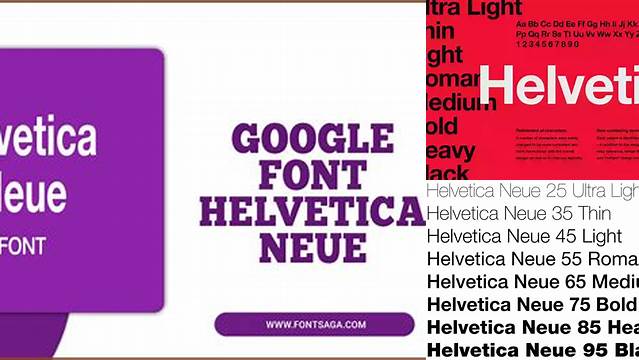
Best Google Fonts That Look Like Helvetica
Hey guys! Ever wondered what Google Fonts are out there that give off that classic Helvetica vibe? You're in the right place! Helvetica is a timeless typeface, known for its clean lines and readability. But sometimes, you need a free alternative, or just something a little different. Let’s dive into some awesome Google Fonts that capture a similar aesthetic. We'll explore fonts perfect for websites, branding, and more. Trust me, finding the right font can make all the difference in your design!
Alternatives to Helvetica on Google Fonts
When you're looking for alternatives to Helvetica on Google Fonts, you want something that maintains that same level of clarity and versatility. Think about what makes Helvetica so great: its simplicity, legibility, and neutral appearance. That's what we're aiming to replicate here. We'll look at several fonts that capture these qualities, offering you a range of options for your projects. Whether you're designing a website, creating a logo, or working on print materials, you'll find a font that fits the bill. Remember, the right font can elevate your design and make your message more impactful. Choosing the right font can really make or break a design, so it's important to understand what makes Helvetica so appealing in the first place and then finding fonts on Google that have similar characteristics. The key is to find fonts that are clean, legible, and versatile. This allows them to be used in a wide range of design applications, from websites to print materials.
Free Fonts Similar to Helvetica Available on Google
Finding free fonts similar to Helvetica available on Google is easier than you might think! Google Fonts is a treasure trove of high-quality, open-source typefaces. We’ll explore fonts that closely resemble Helvetica in terms of structure, spacing, and overall feel. These fonts are not only free but also easy to implement on your website or in your design projects. Using these fonts, you can achieve a similar aesthetic without breaking the bank. Think about the impression you want to make with your designs and choose fonts that reflect those values. Free doesn't mean low quality – these fonts are professionally designed and ready to use. Many designers rely on Google Fonts for their projects, and you can too. The fact that they're free makes them even more appealing, especially for designers who are just starting out or who are working on a budget. However, it's important to choose your fonts carefully, as not all free fonts are created equal. Look for fonts that have been professionally designed and that have a wide range of weights and styles available. This will give you the flexibility you need to create effective designs.
Closest Font to Helvetica in Google Fonts
What’s the closest font to Helvetica in Google Fonts? That’s the million-dollar question! While no font is an exact replica, some fonts come remarkably close. We’ll pinpoint fonts that share key characteristics with Helvetica, such as a similar x-height, stroke contrast, and overall geometry. These fonts can serve as excellent substitutes when you want that Helvetica look without the Helvetica price tag. Consider factors like readability and versatility when making your choice. Sometimes, a slight variation can add a unique touch to your design while still maintaining the essence of Helvetica. Finding that perfect balance is key. When searching for the closest font to Helvetica, pay attention to the details. Look at the shape of the letters, the spacing between the letters, and the overall weight of the font. These are all important factors that will contribute to the overall look and feel of your design. Also, don't be afraid to experiment with different fonts and styles until you find the perfect match.
Google Font Alternatives Resembling Helvetica
Let’s explore several Google Font alternatives resembling Helvetica. Each option offers a unique take on the classic typeface. We'll discuss their strengths, weaknesses, and ideal use cases. From slightly rounded versions to more geometric interpretations, you'll find a variety of fonts that capture the spirit of Helvetica. These alternatives provide flexibility for different design styles and preferences. Consider the overall tone and message of your project when selecting the best fit. Some fonts might be better suited for headlines, while others excel in body text. The beauty of Google Fonts is the sheer variety available, so take your time to explore and experiment. Choosing the right font can make all the difference in the success of your design. Think about the target audience and the overall message you want to convey. With so many options to choose from, you're sure to find the perfect font for your project.
Helvetica-Style Fonts on Google Fonts
Discovering Helvetica-style fonts on Google Fonts is like finding hidden gems! These fonts offer a similar aesthetic to Helvetica, characterized by clean, modern, and highly readable designs. They are perfect for projects where you need a neutral and versatile typeface. Whether you're working on a website, a brochure, or a presentation, these fonts will ensure your text looks polished and professional. Explore fonts with similar letterforms, spacing, and overall appearance to achieve that classic Helvetica look without any licensing fees. Remember, the right font can enhance your brand identity and make your message more impactful. Don't underestimate the power of typography in design. It's one of the most important elements that can make or break a design. So, take your time to find the perfect font for your project and make sure it aligns with your brand values and aesthetic.
Open Source Fonts Similar to Helvetica
Using open source fonts similar to Helvetica is a great way to save money and still achieve a professional look. Open source fonts are free to use for personal and commercial projects, making them a budget-friendly option. We'll highlight fonts that capture the essence of Helvetica while being completely free to use. These fonts are perfect for startups, small businesses, or anyone looking to create high-quality designs without spending a fortune. Open source fonts are often created by talented designers who are passionate about typography and want to share their work with the world. By using open source fonts, you're supporting the design community and contributing to the open-source movement. Plus, you'll have access to a wide range of fonts that you can use in your projects. So, if you're looking for a cost-effective way to create professional-looking designs, consider using open source fonts similar to Helvetica.
Best Fonts Similar to Helvetica for Web Design
For web design, the best fonts similar to Helvetica need to be highly readable and perform well across different browsers and devices. We’ll focus on fonts that are optimized for screen display, ensuring your website looks great on desktops, tablets, and smartphones. These fonts should have clear letterforms and proper spacing to ensure a pleasant reading experience for your visitors. Consider factors like font weight and style when choosing the best font for your website. Some fonts might be better suited for headings, while others excel in body text. The goal is to create a cohesive and visually appealing design that enhances the user experience. A well-chosen font can improve readability, convey your brand message, and make your website more engaging. So, take the time to find the perfect font for your web design project and make sure it's optimized for the web.
Top Google Fonts That Mimic Helvetica
Let’s review the top Google Fonts that mimic Helvetica. We’ll delve into specific font names and discuss why they make excellent alternatives. Think of this as your cheat sheet for finding the perfect Helvetica-inspired font on Google Fonts. We’ll cover fonts that are suitable for various design purposes, from branding to web design to print materials. Each font has its own unique characteristics, so you'll have plenty of options to choose from. Consider the overall style and tone of your project when selecting the best font. The goal is to find a font that complements your design and enhances your message. Don't be afraid to experiment with different fonts and styles until you find the perfect fit. With so many options available on Google Fonts, you're sure to find a font that meets your needs and exceeds your expectations. When it comes to finding fonts that mimic Helvetica, it's important to look for fonts that share similar characteristics, such as clean lines, geometric shapes, and a neutral appearance. These are the qualities that make Helvetica so popular and versatile, so finding fonts that embody these qualities will help you achieve a similar aesthetic in your designs.
Google Fonts with Similar Characteristics to Helvetica
Finding Google Fonts with similar characteristics to Helvetica involves understanding what makes Helvetica so unique. It’s all about the clean lines, neutral design, and excellent readability. We'll explore fonts that share these key attributes, providing you with a range of options for your design projects. These fonts are versatile and can be used in various applications, from websites to print materials. Consider the overall tone and style of your project when selecting the best font. The goal is to find a font that complements your design and enhances your message. Don't be afraid to experiment with different fonts and styles until you find the perfect fit. With so many options available on Google Fonts, you're sure to find a font that meets your needs and exceeds your expectations. When it comes to finding fonts with similar characteristics to Helvetica, it's important to look for fonts that share similar features, such as a large x-height, uniform stroke width, and open apertures. These are all important factors that contribute to the overall readability and legibility of the font. Also, consider the font's weight and style options, as this will give you more flexibility in your designs.
Best Sans-Serif Google Fonts Like Helvetica
When searching for sans-serif Google Fonts like Helvetica, you're looking for fonts that are clean, modern, and highly readable. Sans-serif fonts are characterized by the absence of serifs, the small decorative strokes at the end of letterforms. We'll highlight fonts that capture the essence of Helvetica while being completely free to use. These fonts are perfect for websites, branding, and print materials. Sans-serif fonts are often used in headlines and body text, as they are easy to read on screen and in print. Consider the overall tone and style of your project when selecting the best font. The goal is to find a font that complements your design and enhances your message. Don't be afraid to experiment with different fonts and styles until you find the perfect fit. With so many options available on Google Fonts, you're sure to find a font that meets your needs and exceeds your expectations. When choosing sans-serif fonts, pay attention to the font's weight, style, and spacing. These are all important factors that will affect the overall readability and legibility of the font.
Google Fonts for a Modern Look Similar to Helvetica
To achieve a modern look similar to Helvetica using Google Fonts, you need fonts that exude simplicity and clarity. We'll explore fonts that are perfect for creating a contemporary and sophisticated design. These fonts are ideal for websites, branding, and marketing materials. Consider the overall tone and style of your project when selecting the best font. The goal is to find a font that complements your design and enhances your message. Don't be afraid to experiment with different fonts and styles until you find the perfect fit. With so many options available on Google Fonts, you're sure to find a font that meets your needs and exceeds your expectations. When choosing fonts for a modern look, pay attention to the font's weight, style, and spacing. Look for fonts that have clean lines, geometric shapes, and a neutral appearance. These are the qualities that make Helvetica so popular and versatile. Also, consider using fonts with a large x-height, as this will improve readability and legibility.
Free Google Fonts That Emulate Helvetica’s Style
Finding free Google Fonts that emulate Helvetica’s style is a great way to save money and still achieve a professional look. These fonts are free to use for personal and commercial projects, making them a budget-friendly option. We'll highlight fonts that capture the essence of Helvetica while being completely free to use. These fonts are perfect for startups, small businesses, or anyone looking to create high-quality designs without spending a fortune. Free doesn't mean low quality – these fonts are professionally designed and ready to use. Many designers rely on Google Fonts for their projects, and you can too. The fact that they're free makes them even more appealing, especially for designers who are just starting out or who are working on a budget. However, it's important to choose your fonts carefully, as not all free fonts are created equal. Look for fonts that have been professionally designed and that have a wide range of weights and styles available. This will give you the flexibility you need to create effective designs.
Google Fonts with High Readability Like Helvetica
Google Fonts with high readability like Helvetica are crucial for ensuring your message is easily understood. Helvetica is renowned for its clarity, making it a popular choice for body text and headlines alike. We’ll explore fonts that share this characteristic, ensuring your website or design project is accessible and engaging. These fonts should have clear letterforms, proper spacing, and a comfortable x-height. Consider the target audience when selecting the best font for readability. Some fonts might be better suited for certain age groups or reading levels. The goal is to create a design that is easy to read and understand for everyone. A well-chosen font can improve comprehension, increase engagement, and enhance the overall user experience. So, take the time to find the perfect font for your project and make sure it's optimized for readability. When choosing fonts for high readability, pay attention to the font's weight, style, and spacing. Also, consider the contrast between the text and the background. This is an important factor that will affect the overall readability of the text.
Similar Fonts to Helvetica for Professional Use
When you need similar fonts to Helvetica for professional use, you want typefaces that convey authority and reliability. Helvetica is a staple in the corporate world, known for its clean and neutral appearance. We'll highlight fonts that capture these qualities, making them ideal for business documents, presentations, and marketing materials. These fonts should be versatile and easy to read in various sizes and formats. Consider the overall brand identity when selecting the best font for professional use. The goal is to find a font that reflects your company's values and personality. Don't be afraid to experiment with different fonts and styles until you find the perfect fit. With so many options available on Google Fonts, you're sure to find a font that meets your needs and exceeds your expectations. When choosing fonts for professional use, pay attention to the font's weight, style, and spacing. Also, consider the font's licensing terms. Make sure you have the right to use the font for commercial purposes. This is an important step to avoid any legal issues.
Google Font Options Similar to Helvetica for Print
For Google Font options similar to Helvetica for print, you need fonts that render well at various sizes and resolutions. We'll focus on fonts that are optimized for print, ensuring your brochures, flyers, and other printed materials look crisp and professional. These fonts should have clear letterforms, proper spacing, and a comfortable x-height. Consider the target audience when selecting the best font for print. Some fonts might be better suited for certain age groups or reading levels. The goal is to create a design that is easy to read and understand for everyone. A well-chosen font can improve comprehension, increase engagement, and enhance the overall user experience. So, take the time to find the perfect font for your project and make sure it's optimized for print. When choosing fonts for print, pay attention to the font's weight, style, and spacing. Also, consider the paper stock and printing method. These are all important factors that will affect the overall appearance of the text.
Best Google Fonts for Body Text Similar to Helvetica
When selecting the best Google Fonts for body text similar to Helvetica, readability is paramount. Helvetica is a popular choice for body text due to its clarity and neutrality. We'll explore fonts that share these qualities, ensuring your website or document is easy to read. These fonts should have clear letterforms, proper spacing, and a comfortable x-height. Consider the target audience when selecting the best font for body text. Some fonts might be better suited for certain age groups or reading levels. The goal is to create a design that is easy to read and understand for everyone. A well-chosen font can improve comprehension, increase engagement, and enhance the overall user experience. So, take the time to find the perfect font for your project and make sure it's optimized for body text. When choosing fonts for body text, pay attention to the font's weight, style, and spacing. Also, consider the line height and letter spacing. These are all important factors that will affect the overall readability of the text.
Google Fonts That Offer a Neutral Look Like Helvetica
Google Fonts that offer a neutral look like Helvetica are ideal for projects where you want the content to speak for itself. Helvetica is known for its unobtrusive design, making it a versatile choice for various applications. We'll explore fonts that share this characteristic, ensuring your website or design project has a clean and professional appearance. These fonts should be easy to read and blend seamlessly with the overall design. Consider the target audience when selecting the best font for a neutral look. Some fonts might be better suited for certain industries or brand identities. The goal is to find a font that complements your design and enhances your message without being too distracting. A well-chosen font can improve readability, increase engagement, and enhance the overall user experience. So, take the time to find the perfect font for your project and make sure it's optimized for a neutral look. When choosing fonts for a neutral look, pay attention to the font's weight, style, and spacing. Also, consider the font's overall tone and personality.
Choosing the Right Google Font Similar to Helvetica
Choosing the right Google Font similar to Helvetica requires careful consideration of your project's goals and target audience. Think about the overall message you want to convey and the tone you want to set. We'll provide tips and guidelines to help you make the best choice for your specific needs. Consider factors like readability, versatility, and compatibility when selecting a font. The goal is to find a font that enhances your design and makes your message more impactful. Don't be afraid to experiment with different fonts and styles until you find the perfect fit. With so many options available on Google Fonts, you're sure to find a font that meets your needs and exceeds your expectations. When choosing fonts, pay attention to the font's weight, style, and spacing. Also, consider the font's overall tone and personality. A well-chosen font can make all the difference in the success of your design. So, take your time to find the perfect font for your project and make sure it aligns with your brand values and aesthetic. Remember, the right font can elevate your design and make your message more impactful.
Alternatives to Helvetica for a Clean Design Aesthetic
To achieve a clean design aesthetic with alternatives to Helvetica, focus on simplicity and clarity. Helvetica is renowned for its clean lines and minimalist design. We'll explore fonts that share these qualities, ensuring your website or design project has a polished and professional appearance. These fonts should be easy to read and blend seamlessly with the overall design. Consider the target audience when selecting the best font for a clean design. Some fonts might be better suited for certain industries or brand identities. The goal is to find a font that complements your design and enhances your message without being too distracting. A well-chosen font can improve readability, increase engagement, and enhance the overall user experience. So, take the time to find the perfect font for your project and make sure it's optimized for a clean design. When choosing fonts for a clean design, pay attention to the font's weight, style, and spacing. Also, consider the font's overall tone and personality. Look for fonts that have clean lines, geometric shapes, and a neutral appearance.
Google Fonts with Wide Character Support Like Helvetica
Google Fonts with wide character support like Helvetica are essential for projects that require multilingual content. Helvetica is known for its comprehensive character set, making it a versatile choice for various languages. We'll explore fonts that share this characteristic, ensuring your website or design project can support a wide range of characters and symbols. These fonts should have clear letterforms, proper spacing, and a comfortable x-height. Consider the target audience when selecting the best font for wide character support. Some fonts might be better suited for certain languages or cultural contexts. The goal is to find a font that is easy to read and understand for everyone, regardless of their language or location. A well-chosen font can improve comprehension, increase engagement, and enhance the overall user experience. So, take the time to find the perfect font for your project and make sure it's optimized for wide character support. When choosing fonts for wide character support, pay attention to the font's character set, language support, and overall readability.
Fonts Similar to Helvetica That are Easy to Pair
When you need fonts similar to Helvetica that are easy to pair, you want typefaces that complement each other well. Helvetica is known for its versatility and ability to pair with various other fonts. We'll explore fonts that share these qualities, making them ideal for creating visually appealing and balanced designs. These fonts should have clear letterforms, proper spacing, and a comfortable x-height. Consider the overall design and brand identity when selecting fonts that are easy to pair. Some fonts might be better suited for certain industries or brand identities. The goal is to find fonts that work well together and enhance the overall message. A well-chosen font pairing can improve readability, increase engagement, and enhance the overall user experience. So, take the time to find the perfect font pairing for your project and make sure they complement each other well. When choosing fonts that are easy to pair, pay attention to the font's weight, style, spacing, and overall tone.
Google Fonts Ideal for Headlines Similar to Helvetica
Google Fonts ideal for headlines similar to Helvetica should be bold and attention-grabbing. Helvetica is often used in headlines due to its clarity and impact. We'll explore fonts that share these qualities, ensuring your website or design project has strong and effective headlines. These fonts should have clear letterforms, proper spacing, and a comfortable x-height. Consider the target audience when selecting the best font for headlines. Some fonts might be better suited for certain age groups or reading levels. The goal is to create headlines that are easy to read and understand, while also capturing the reader's attention. A well-chosen font can improve comprehension, increase engagement, and enhance the overall user experience. So, take the time to find the perfect font for your project and make sure it's optimized for headlines. When choosing fonts for headlines, pay attention to the font's weight, style, spacing, and overall impact.
Open-Source Alternatives to Helvetica on Google Fonts
Finding open-source alternatives to Helvetica on Google Fonts is a smart choice for budget-conscious designers. Open-source fonts are free to use for personal and commercial projects, making them a cost-effective option. We'll highlight fonts that capture the essence of Helvetica while being completely free to use. These fonts are perfect for startups, small businesses, or anyone looking to create high-quality designs without spending a fortune. Open-source fonts are often created by talented designers who are passionate about typography and want to share their work with the world. By using open-source fonts, you're supporting the design community and contributing to the open-source movement. Plus, you'll have access to a wide range of fonts that you can use in your projects. So, if you're looking for a cost-effective way to create professional-looking designs, consider using open-source fonts similar to Helvetica.
Achieving a Similar Look to Helvetica with Google Fonts
To achieve a similar look to Helvetica with Google Fonts, you need to understand the key characteristics of Helvetica: clean lines, neutral design, and excellent readability. We'll explore fonts that share these attributes, providing you with a range of options for your design projects. These fonts are versatile and can be used in various applications, from websites to print materials. Consider the overall tone and style of your project when selecting the best font. The goal is to find a font that complements your design and enhances your message. Don't be afraid to experiment with different fonts and styles until you find the perfect fit. With so many options available on Google Fonts, you're sure to find a font that meets your needs and exceeds your expectations. When it comes to finding fonts with similar characteristics to Helvetica, it's important to look for fonts that share similar features, such as a large x-height, uniform stroke width, and open apertures. These are all important factors that contribute to the overall readability and legibility of the font. Also, consider the font's weight and style options, as this will give you more flexibility in your designs.
Google Fonts with Geometric Shapes Similar to Helvetica
Google Fonts with geometric shapes similar to Helvetica offer a modern and clean aesthetic. Helvetica is known for its geometric design, which contributes to its readability and versatility. We'll explore fonts that share these qualities, ensuring your website or design project has a contemporary and professional appearance. These fonts should have clear letterforms, proper spacing, and a comfortable x-height. Consider the target audience when selecting the best font for geometric shapes. Some fonts might be better suited for certain industries or brand identities. The goal is to find a font that complements your design and enhances your message without being too distracting. A well-chosen font can improve readability, increase engagement, and enhance the overall user experience. So, take the time to find the perfect font for your project and make sure it's optimized for geometric shapes. When choosing fonts for geometric shapes, pay attention to the font's weight, style, and spacing. Also, consider the font's overall tone and personality. Look for fonts that have clean lines, geometric shapes, and a neutral appearance.
Fonts Resembling Helvetica for Web and Print Projects
Finding fonts resembling Helvetica for web and print projects ensures consistency across all your designs. Helvetica is a versatile typeface that works well in both digital and printed formats. We'll explore fonts that share these qualities, providing you with a range of options for your various design needs. These fonts should have clear letterforms, proper spacing, and a comfortable x-height. Consider the target audience when selecting the best font for web and print projects. Some fonts might be better suited for certain industries or brand identities. The goal is to find a font that complements your design and enhances your message without being too distracting. A well-chosen font can improve readability, increase engagement, and enhance the overall user experience. So, take the time to find the perfect font for your project and make sure it's optimized for both web and print. When choosing fonts for web and print projects, pay attention to the font's weight, style, spacing, and overall tone.
Google Fonts for Creating a Timeless Design Like Helvetica
Google Fonts for creating a timeless design like Helvetica should have classic appeal. Helvetica is known for its timeless design. We'll explore fonts that share these qualities, ensuring your website or design project has a classic appeal. These fonts should have clear letterforms, proper spacing, and a comfortable x-height. Consider the target audience when selecting the best font. Some fonts might be better suited for certain industries or brand identities. The goal is to find a font that complements your design and enhances your message without being too distracting. A well-chosen font can improve readability, increase engagement, and enhance the overall user experience. So, take the time to find the perfect font for your project and make sure it's optimized for a timeless design. When choosing fonts, pay attention to the font's weight, style, spacing, and overall tone. Also, consider the font's history and cultural significance.
Using Google Fonts to Achieve a Helvetica-Inspired Look
Using Google Fonts to achieve a Helvetica-inspired look is easier than you might think! By understanding the key characteristics of Helvetica and exploring the vast library of Google Fonts, you can find the perfect typeface for your project. We'll provide tips and guidelines to help you make the best choice for your specific needs. Consider factors like readability, versatility, and compatibility when selecting a font. The goal is to find a font that enhances your design and makes your message more impactful. Don't be afraid to experiment with different fonts and styles until you find the perfect fit. With so many options available on Google Fonts, you're sure to find a font that meets your needs and exceeds your expectations. When choosing fonts, pay attention to the font's weight, style, and spacing. Also, consider the font's overall tone and personality. A well-chosen font can make all the difference in the success of your design. So, take your time to find the perfect font for your project and make sure it aligns with your brand values and aesthetic. Remember, the right font can elevate your design and make your message more impactful.